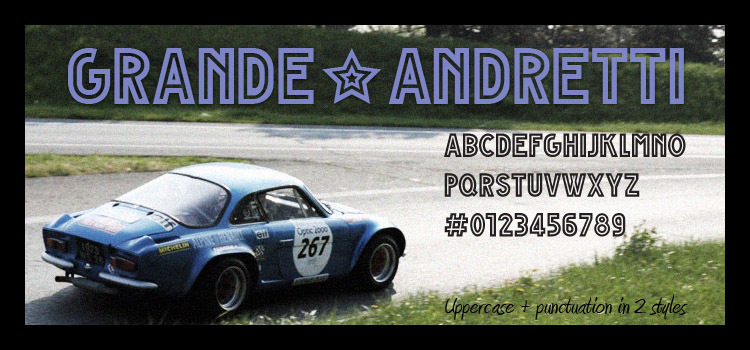
Grande Andretti Bold - limited charset
Grande Andretti Bold by Factorio.us Collective is a free heavy sans serif with tall, tightly fitted capitals and an emphatic rectangular silhouette. Deep cut-ins and sharp triangular joins break up the dense strokes, and several letters take on a carved, almost mechanical look.
Poster design is its strongest setting, especially for motorsport, music, and action events that benefit from compact, forceful lettering. The same weight suits streetwear branding and game title graphics. Those angular notches can echo racing chevrons, metal panels, or hard-edged illustration within the surrounding artwork.